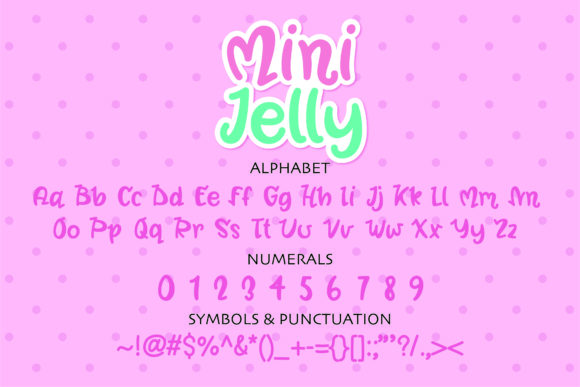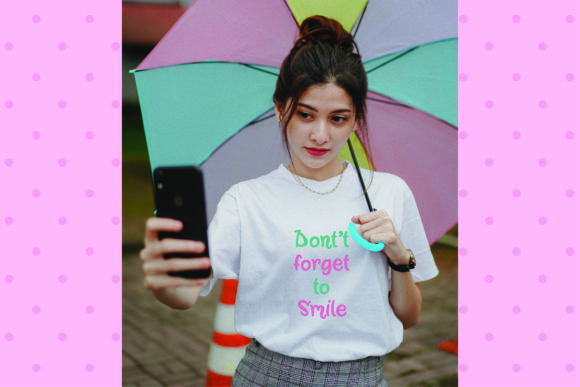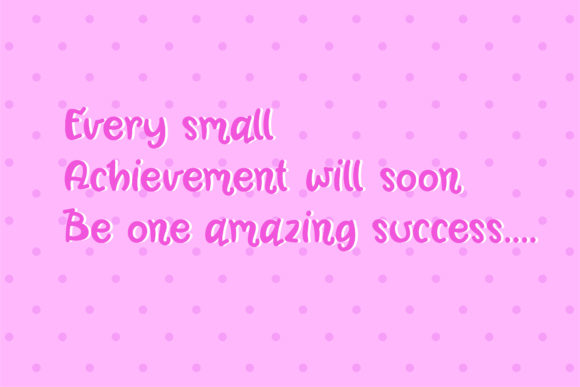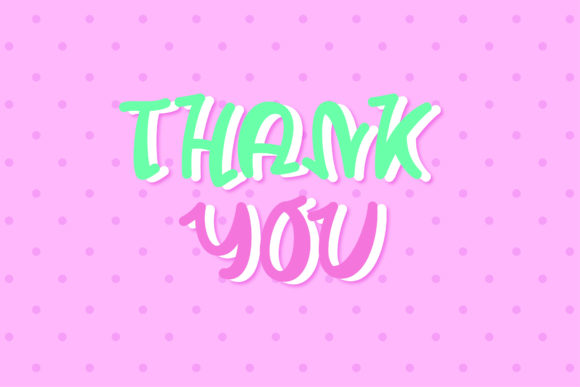
Introduction to Mini Jelly Font
Do you remember the excitement of crafting a handmade card for a loved one? The feeling of bringing a personal touch to a gift or a message is what makes creative projects so special. For designers, finding the right font to match the mood and tone of a project can be a game-changer. That’s where the Mini Jelly Font comes in – a delightful, easy-to-read display font that’s sure to put a smile on your face.
Whether you’re working on a digital design project, creating a presentation, or making a greeting card, the Mini Jelly Font is a valuable resource that can elevate your work. Its high quality and friendly feel make it perfect for designers looking to add a touch of whimsy and personality to their projects. And the best part? The Mini Jelly Font is available for free download, making it an accessible design resource for creatives of all levels.
With its transparent background and playful style, the Mini Jelly Font is a versatile choice for a wide range of creative projects. In this article, we’ll explore the features and benefits of this charming font, and show you how to make the most of it in your next design project.
Key Features of Mini Jelly Font
- Unique, playful font with a transparent background, perfect for adding a whimsical touch to your designs.
- Comes in a single weight, ideal for projects that require a consistent and cohesive look.
- Perfect for use in digital designs, such as social media graphics, logos, and web elements, as well as print materials like stickers and labels.
Honest Review: Mini Jelly Font
I recently had the chance to work with the Mini Jelly Font, and I must say it’s been a delightful experience. This font is perfect for anyone looking to add a touch of whimsy to their creative project.
- The Mini Jelly Font has a high quality design that’s perfect for a variety of uses.
- The transparent background makes it easy to integrate into any design.
- The font may be a bit too playful for more formal designs.
- The character set is limited, which may not be suitable for projects that require a wide range of characters.
Overall, I’m impressed with the Mini Jelly Font. It’s a great addition to any design resource library, and I can see it being used in a variety of creative projects. If you’re looking for a fun and playful font to add some personality to your design, the Mini Jelly Font is definitely worth checking out.
Mini Jelly Font
The Mini Jelly Font is a free download that can elevate your high-quality designs. With a transparent background, this design resource is perfect for adding a creative touch to your projects.
Tips for Getting the Most Out of Mini Jelly Font
Here are a few tips for getting the most out of Mini Jelly Font:
Use it sparingly to add a touch of whimsy to your designs.
Combine it with other design elements, such as icons or graphics, to create a cohesive look.
Experiment with different font sizes and colors to create visual interest.
Common Use Cases for Mini Jelly Font
Mini Jelly Font is perfect for:
Designing social media graphics and posts.
Creating presentations and reports.
Adding a creative touch to marketing materials and flyers.